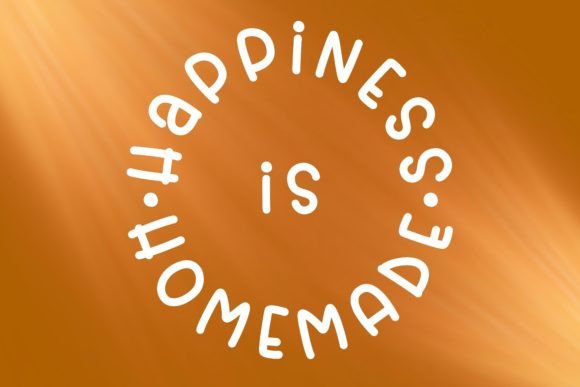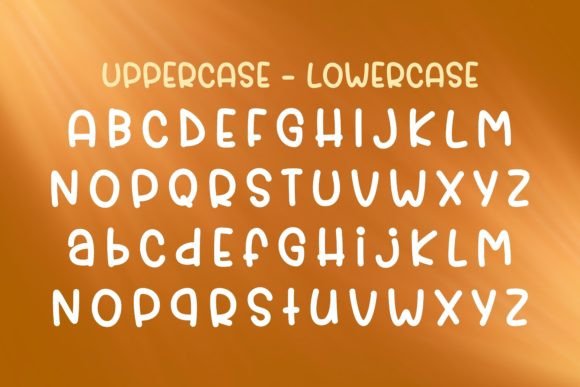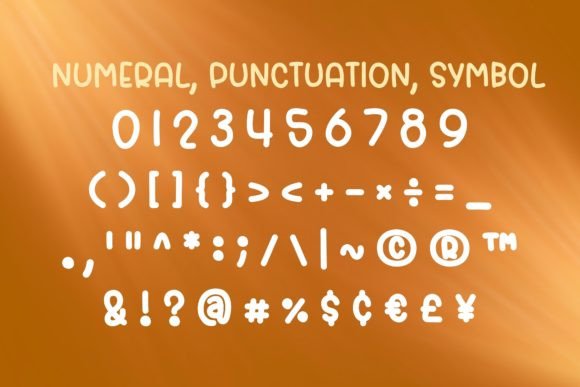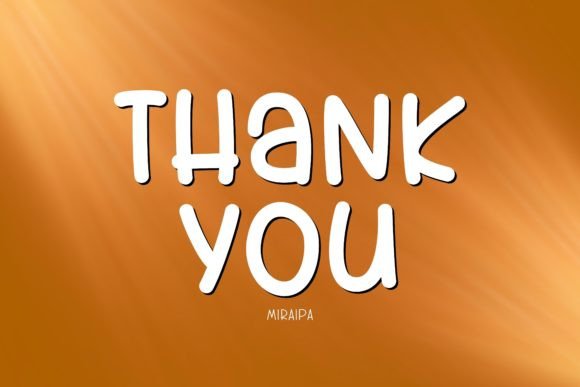
Brown Butter Font: The Perfect Addition to Your Design Library
Are you a designer, crafter, or DIY enthusiast looking for a font that can add a friendly and playful touch to your projects? Look no further than the Brown Butter Font! Designed in a cute and friendly display font style, Brown Butter is the perfect addition to your font library.
What is Brown Butter Font?
Brown Butter Font is a display font designed to bring a warm and friendly feel to your designs. Its unique and playful style makes it perfect for a variety of projects, from diary and planner entries to wedding and party decorations. With its approachable and charming aesthetic, Brown Butter Font is sure to delight audiences of all ages.
Uses for Brown Butter Font
The versatility of Brown Butter Font is one of its most appealing features. Here are just a few ideas for how you can use this delightful font in your designs:
• Diary and Planner Entries: Add a personal touch to your diary and planner entries with Brown Butter Font. Its friendly and approachable style makes it perfect for jotting down notes, goals, and reminders.
• Back-to-School Projects: Make a statement with Brown Butter Font on your back-to-school projects. From pencil cases to notebooks, this font is sure to add a playful touch to your school supplies.
• Weddings and Party Decorations: Use Brown Butter Font to add a whimsical touch to your wedding or party decorations. From invitations to banners, this font is sure to delight your guests.
• Fall, Halloween, and Christmas: Get into the holiday spirit with Brown Butter Font. Its warm and cozy style makes it perfect for Fall, Halloween, and Christmas designs, from pumpkin patches to Christmas trees.
• Posters and Blogs: Add a friendly and approachable touch to your posters and blogs with Brown Butter Font. Its clear and easy-to-read style makes it perfect for communicating your message.
• Clothing and Child-Related Designs: Use Brown Butter Font to create adorable designs for kids’ clothing, toys, and accessories. Its playful style is sure to delight kids and parents alike.
• Greeting Cards and Social Media Posts: Add a personal touch to your greeting cards and social media posts with Brown Butter Font. Its friendly and approachable style makes it perfect for communicating with friends and family.
Why Choose Brown Butter Font?
So why choose Brown Butter Font for your designs? Here are just a few reasons:
• Unique and Playful Style: Brown Butter Font has a unique and playful style that sets it apart from other fonts. Its friendly and approachable aesthetic makes it perfect for designs that need a personal touch.
• Versatility: Brown Butter Font is incredibly versatile, making it perfect for a wide range of projects and applications.
• Easy to Read: Despite its playful style, Brown Butter Font is clear and easy to read, making it perfect for communicating your message.
• Adds a Friendly Touch: Brown Butter Font adds a friendly and approachable touch to your designs, making it perfect for projects that need a personal and welcoming feel.
In conclusion, Brown Butter Font is a must-have addition to your font library. Its unique and playful style, versatility, and ease of use make it perfect for a wide range of projects and applications. Whether you’re a designer, crafter, or DIY enthusiast, Brown Butter Font is sure to bring a friendly and approachable touch to your designs. So why wait? Add Brown Butter Font to your library today and start creating!
Key Features of Brown Butter Font
• Cute and friendly display font style
• Perfect for diary, planner, back-to-school projects, weddings, party decorations, invitations, Fall, Halloween, Christmas, posters, blogs, clothing, child-related designs, greeting cards, social media posts, and more
• Unique and playful style
• Clear and easy to read
• Versatile and adaptable